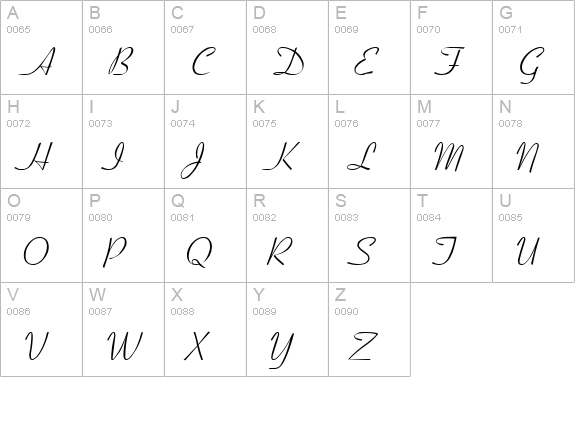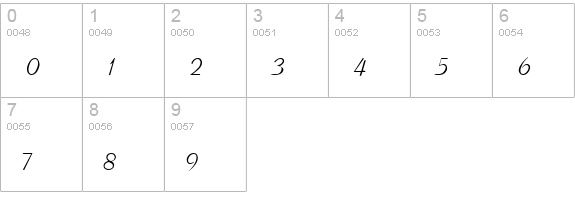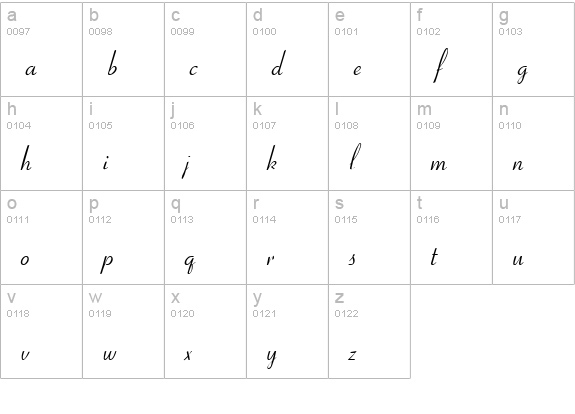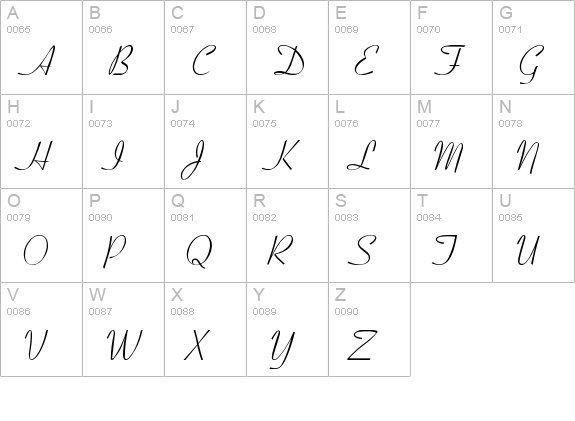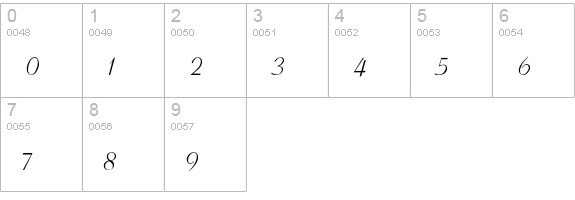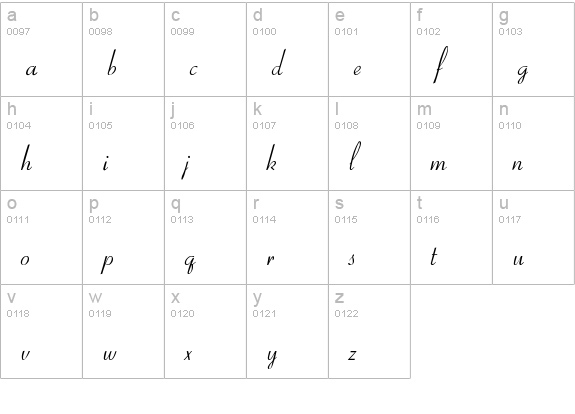
Cornet Script Font Details
Cornet Script is a beautifully elegant font that exudes sophistication and charm. With its delicate curves and graceful swashes, this script font is perfect for adding a touch of luxury to your projects. Whether you're working on wedding invitations, branding materials, or social media graphics, Cornet Script will elevate your designs to a whole new level. And the best part? Cornet Script is completely free to download at FontsMarket.com. So you can add this stunning font to your collection without breaking the bank. Don't miss out on the opportunity to enhance your designs with the timeless beauty of Cornet Script. Download it now and let your creativity soar!